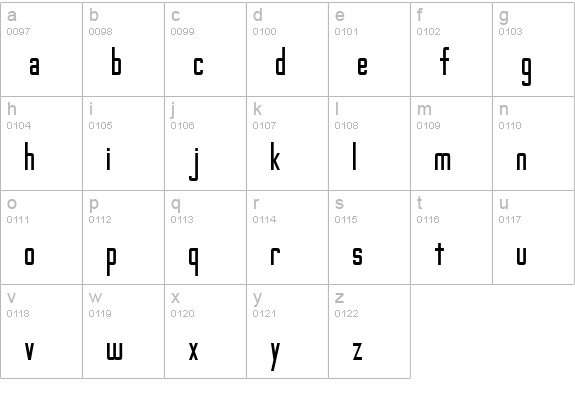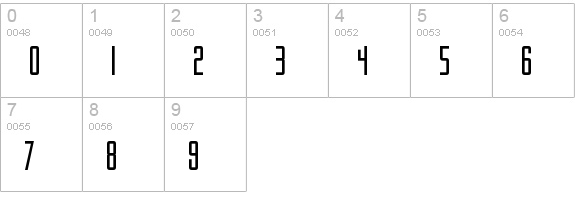
Gotham Nights Normal Font Details
Gotham Nights Normal is the standard, neutral variant in the Gotham typeface family \xE2\x80\x94 well suited to general body text, paragraphs, and standard typographic work.
Gotham Nights Normal font is a sleek and modern typeface that exudes sophistication and style. Its clean lines and sharp edges make it perfect for adding a touch of elegance to any project. Whether you're designing a logo, crafting a website, or creating a poster, Gotham Nights Normal font will elevate your work to the next level. The best part? Gotham Nights Normal font is completely free to download at FontsMarket.com. So you can add this striking typeface to your collection without breaking the bank. Don't miss out on the opportunity to enhance your designs with this versatile and eye-catching font. Download Gotham Nights Normal today and let your creativity shine!